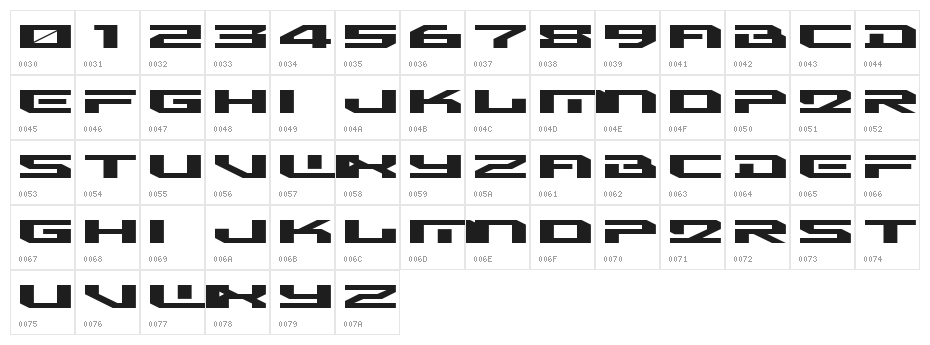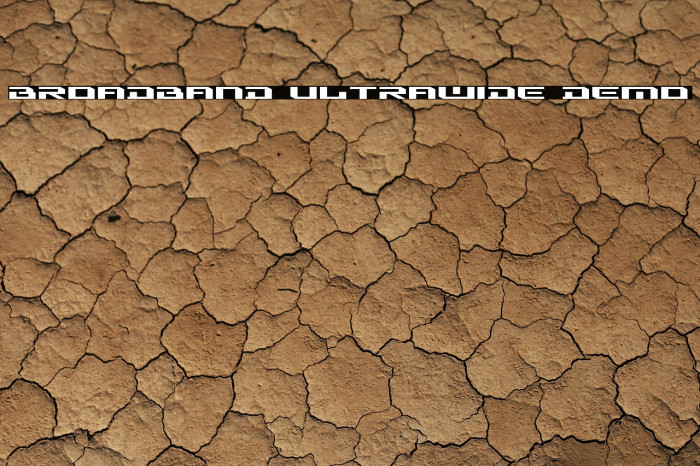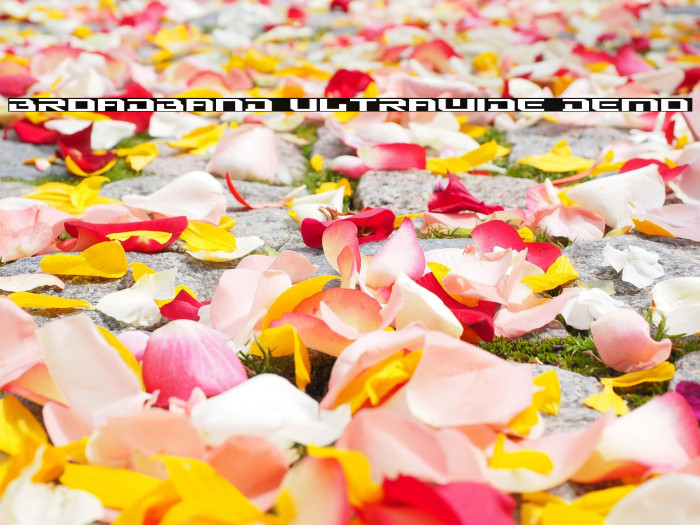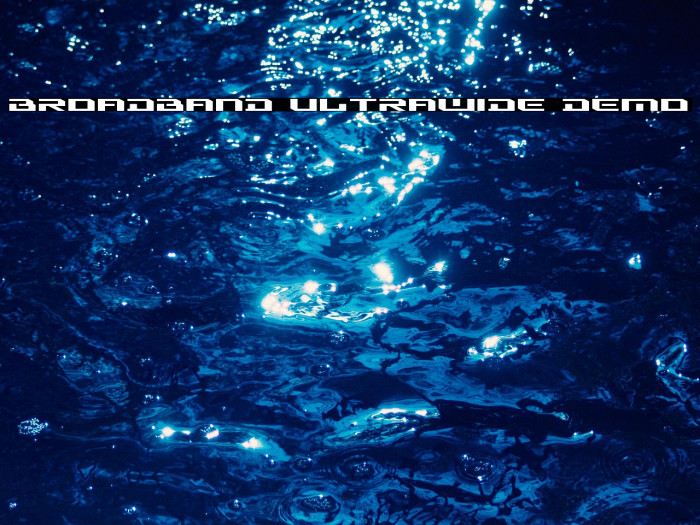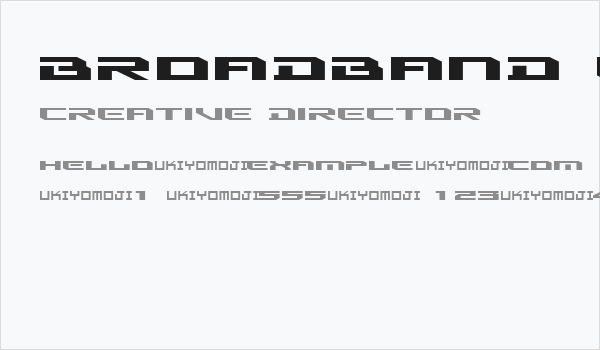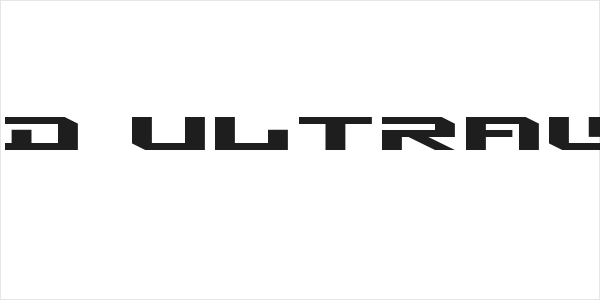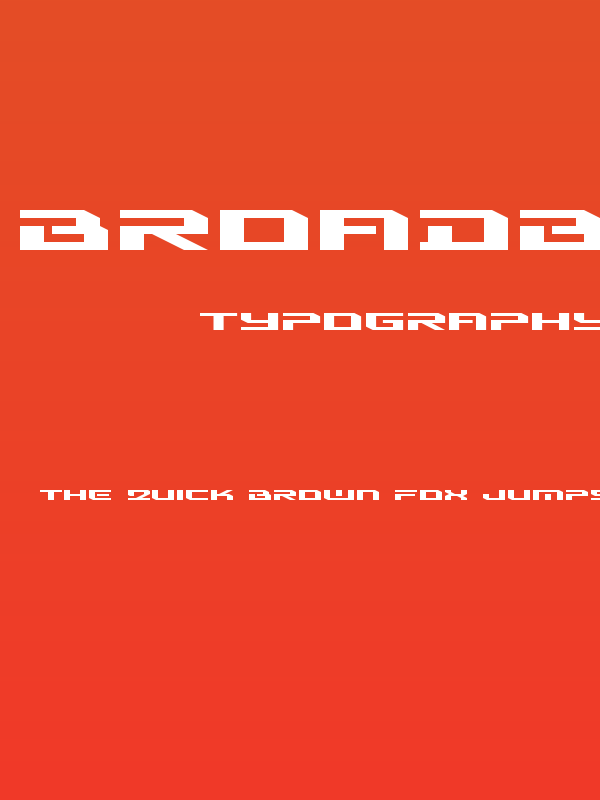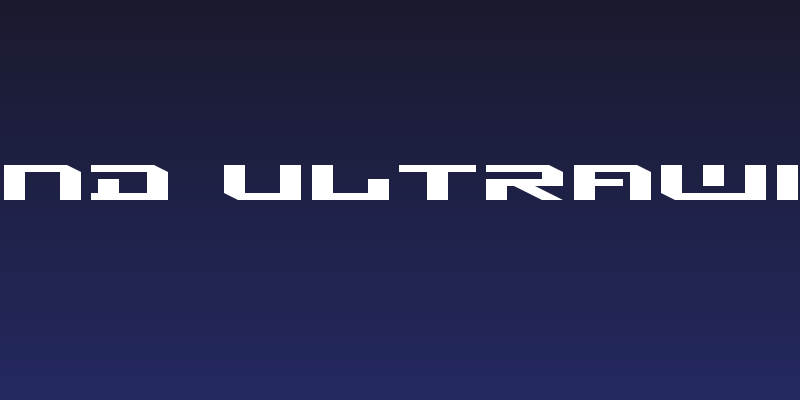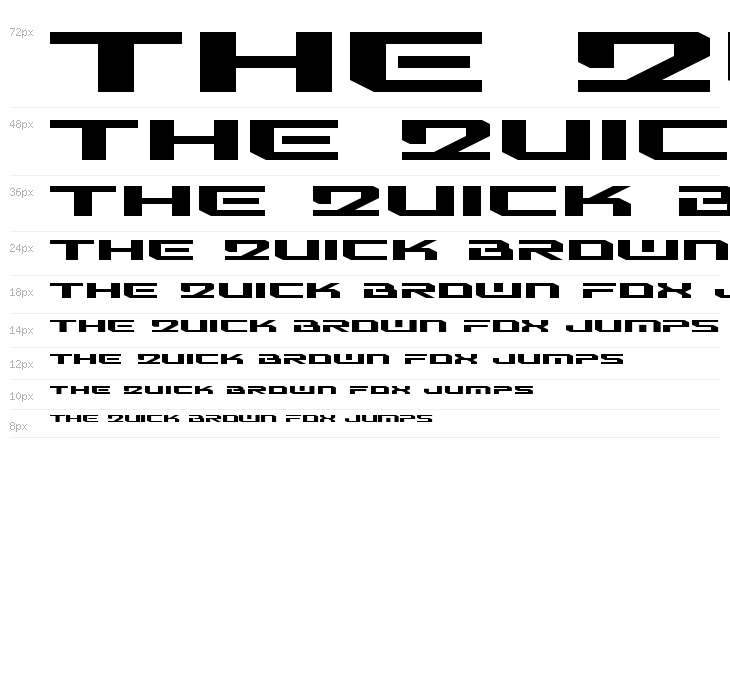
Broadband Ultrawide DEMO Font
Broadband Ultrawide DEMO Description
This font features a bold, futuristic design with angular and geometric shapes. The characters are wide and have a distinct, blocky appearance, making them stand out prominently. The uppercase and lowercase letters maintain a consistent style, with sharp edges and a modern aesthetic. The numbers and special characters follow the same design principles, ensuring uniformity across all glyphs. This font is ideal for projects that require a strong, impactful visual presence, such as technology branding, sci-fi themes, or modern digital interfaces.
| Proposed Projects | Ideal for technology branding, sci-fi themes, digital interfaces, and modern advertising. |